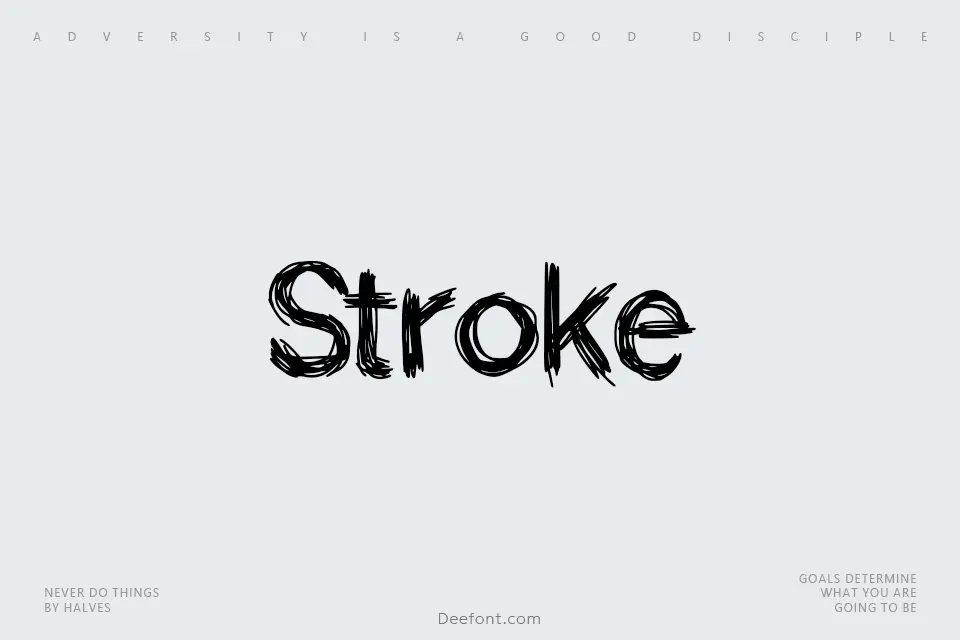
Stroke Font
Stroke is an inventive display typeface featuring distinctive outlined characters that create bold, eye-catching visual impact. Designed with minimalist line-work aesthetics, this font excels at creating striking posters, headlines, and decorative graphics. Its sketch-like stroke design makes it ideal for trash-themed visuals, Halloween graphics, and contemporary artistic projects. The font includes 66 unique glyphs offering versatile dingbat and symbol elements, making it perfect for designers seeking unconventional letterforms for logos, event flyers, and statement typography.